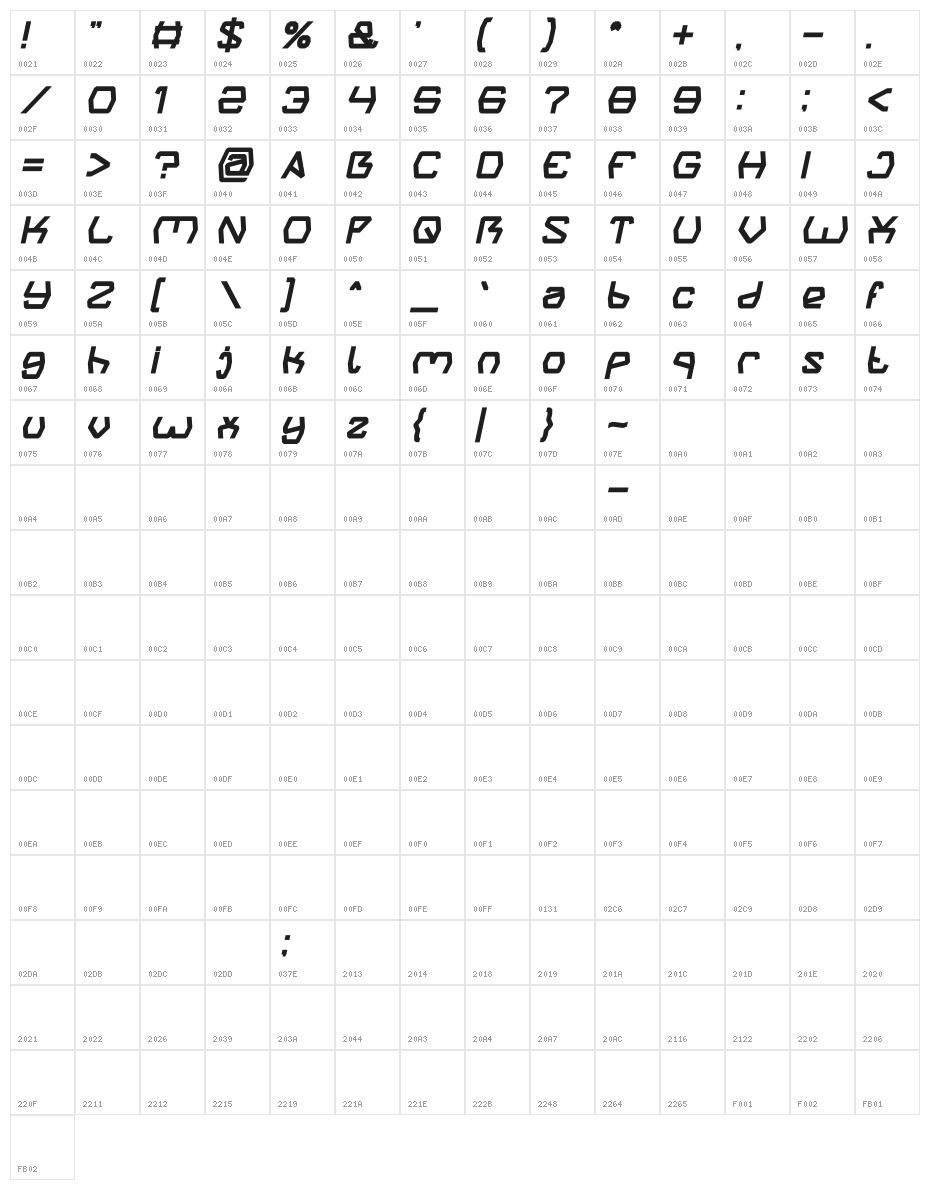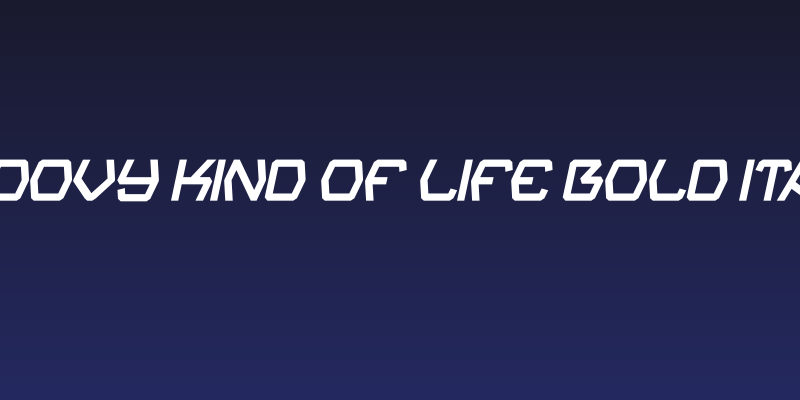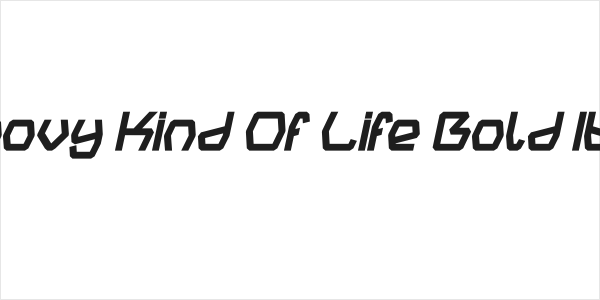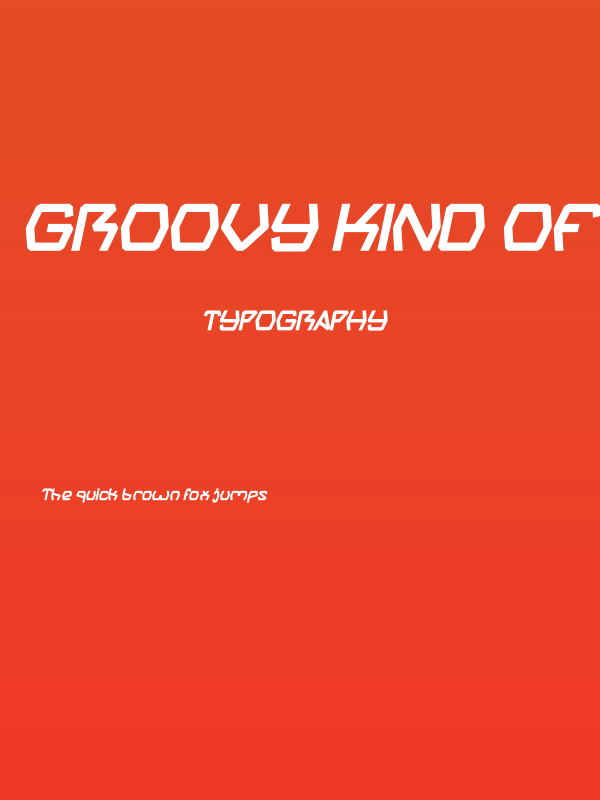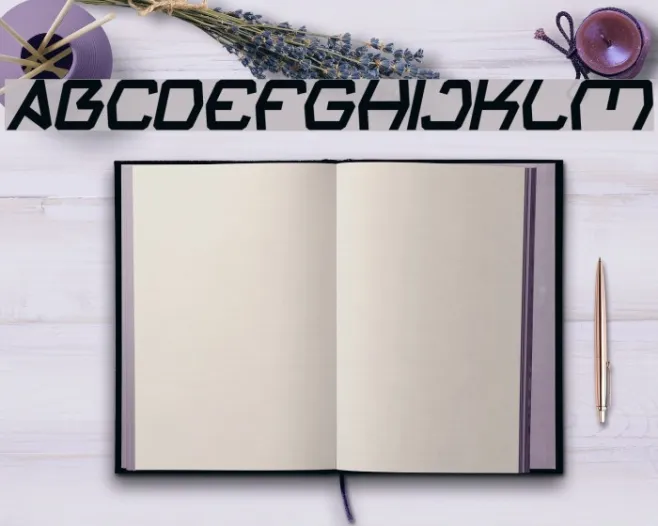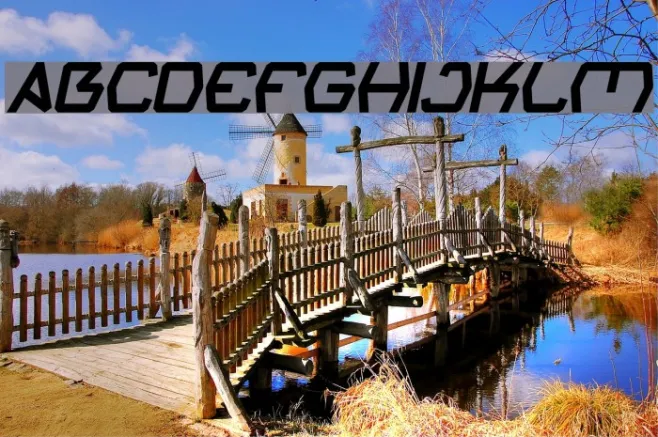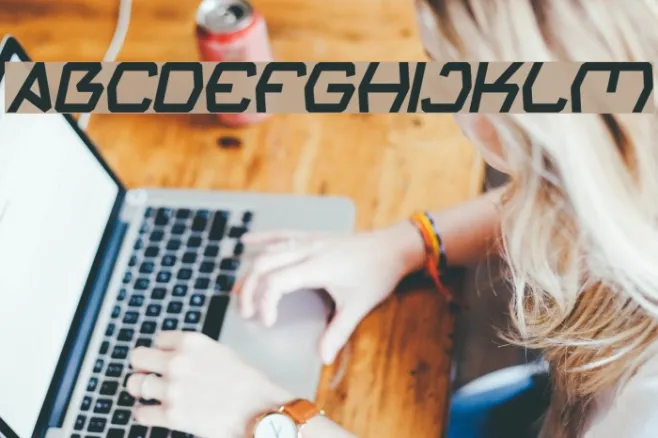
Groovy Kind Of Life Bold Italic Font
Groovy Kind Of Life Bold Italic Description
This font features a bold and italic style with a distinctly modern and edgy appearance. The characters are angular and geometric, giving them a futuristic and dynamic feel. The uppercase and lowercase letters maintain a consistent style, with sharp edges and a slight slant that enhances the italic effect. The numbers and special characters follow the same design principles, ensuring a cohesive look across all glyphs. The font's boldness makes it stand out, while the italic slant adds a sense of movement and energy. It's ideal for projects that require a strong visual impact and a contemporary aesthetic.
| Proposed Projects | Ideal for branding, posters, album covers, and any project needing a bold, modern touch. |